Now that I have spent a year sketching letters of this style I am starting to think about color and offset layers on a larger scale. This lettering and illustration style will evolve into more complex lettering illustrations and eventually prints.
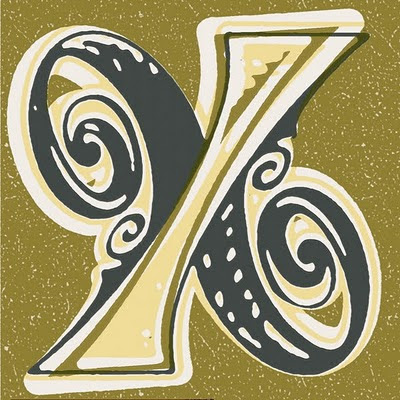
Though the illustration has a unplanned appearance a lot of preliminary sketching was required to develop the letter shape.
Very nice! Reminds me of lettering from the late 1960's era. There is a great amount of lettering inspiration available for the eyes to enjoy including your piece.